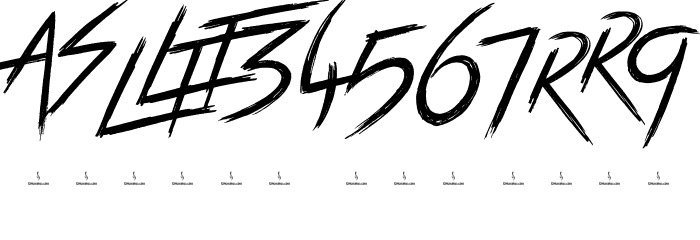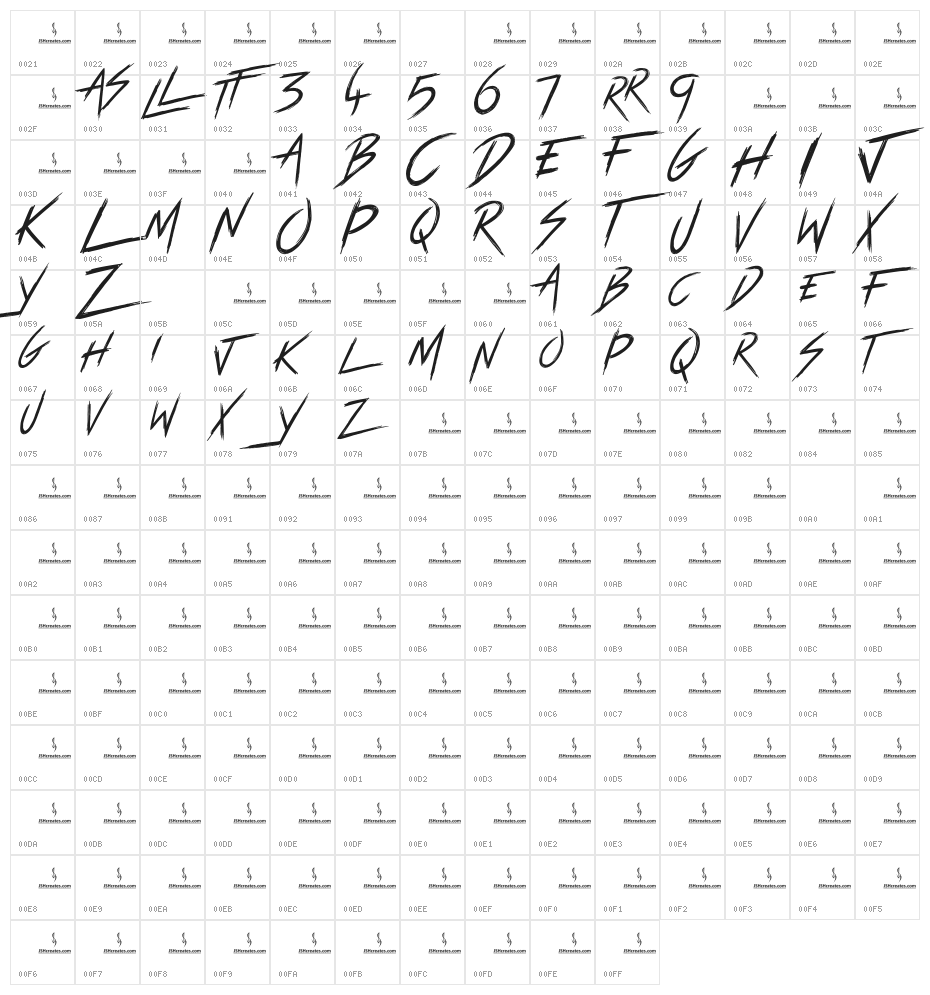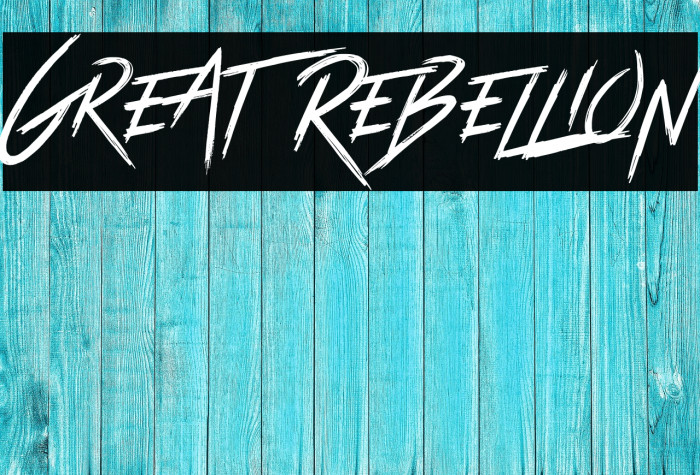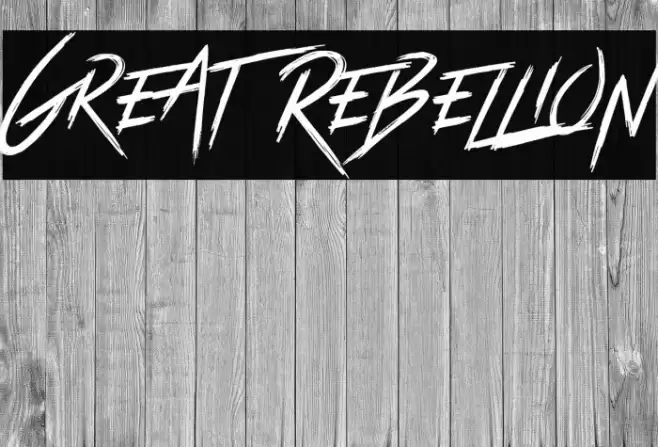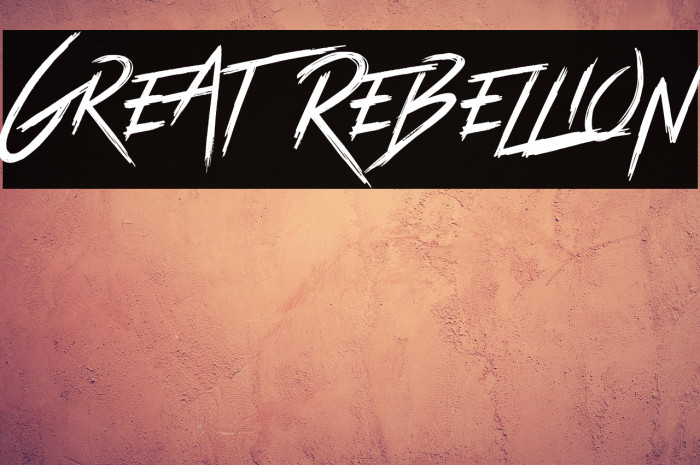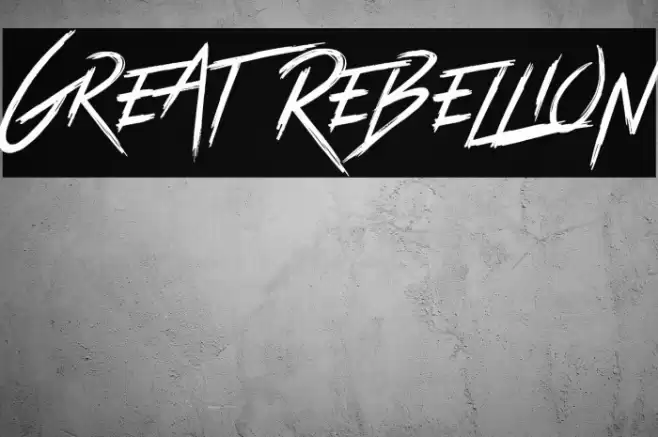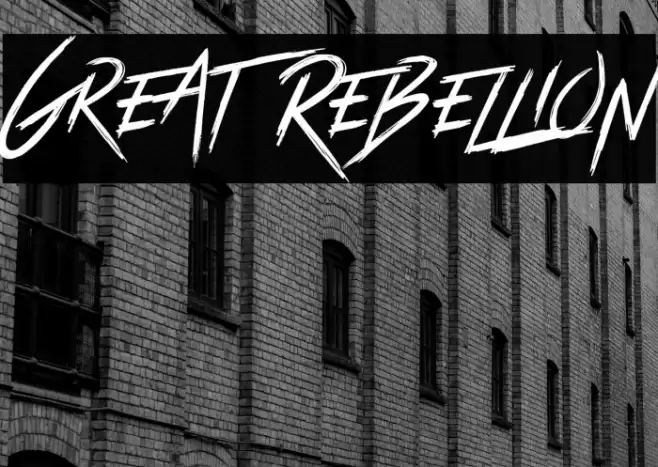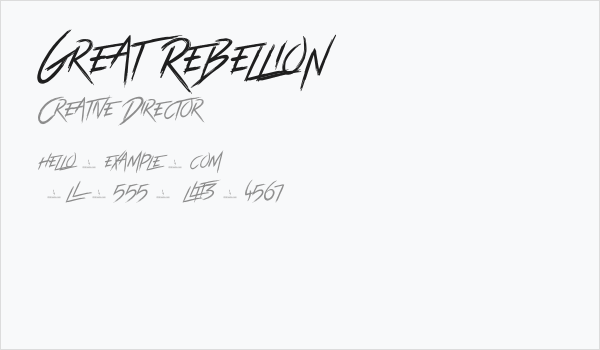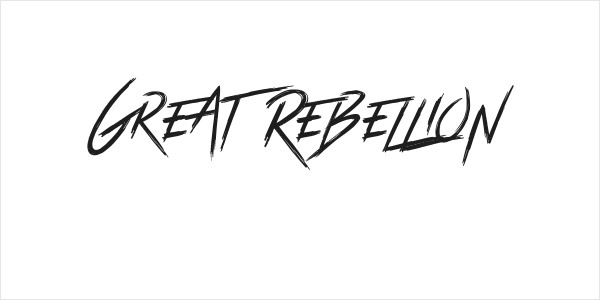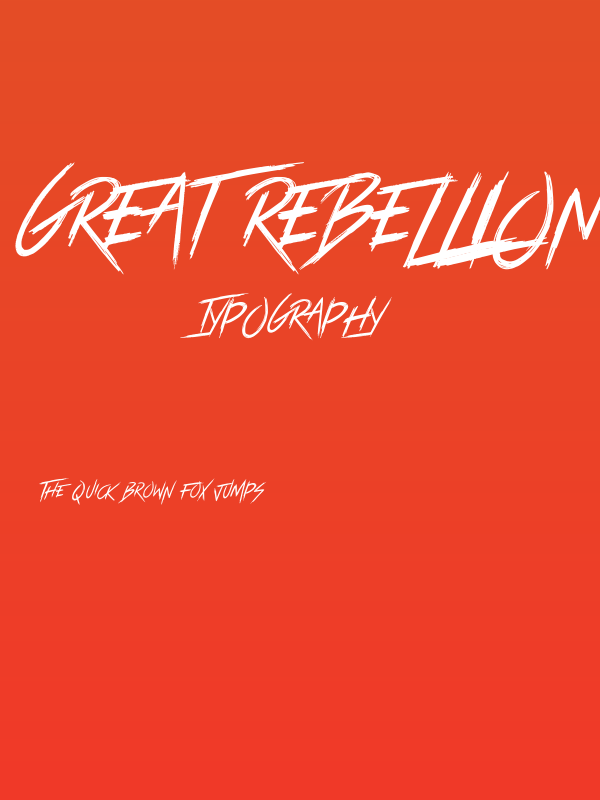
Great Rebellion Font
Great Rebellion Description
This font exudes a raw, energetic vibe with its bold, brush-like strokes and dynamic angles. Each character is crafted with a sense of urgency and movement, reminiscent of graffiti or street art. The letters are sharply defined, with jagged edges that give a sense of rebellion and defiance. The uppercase and lowercase letters maintain a consistent style, while the numbers and special characters integrate seamlessly, adding to the font's cohesive look. Its expressive nature makes it ideal for projects that require a strong, impactful visual statement.
| Overall Style | Modern, Edgy |
| Proposed Projects | Ideal for music album covers, streetwear branding, event posters, and any project needing a bold, edgy aesthetic. |